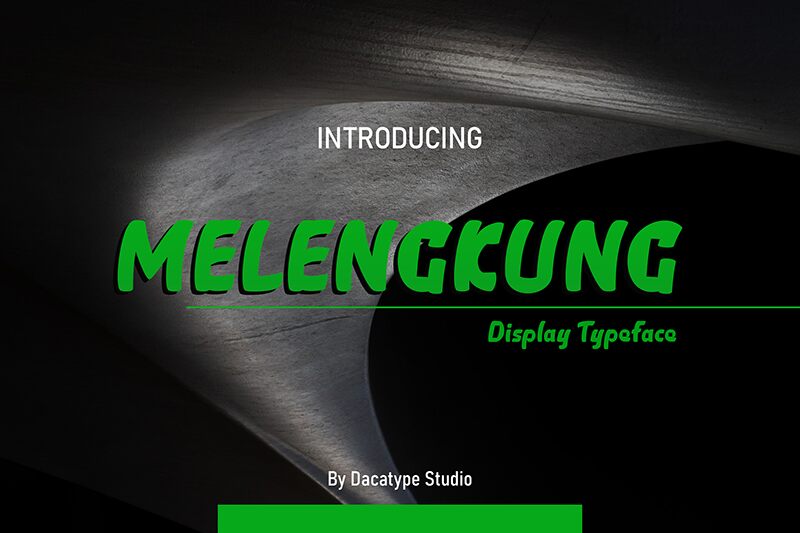
Melengkung
Melengkung, a bold display font by Dacatype Studio, boasts a distinctive curved appearance that will add flair to your headings. Its uniqueness sets it apart and ensures your messages leave a lasting impression.
Whether you're working on branding, advertising, or creative projects, Melengkung is the perfect choice for those seeking a fresh and unconventional look. Elevate your designs with this captivating font that transforms ordinary text into extraordinary expressions.